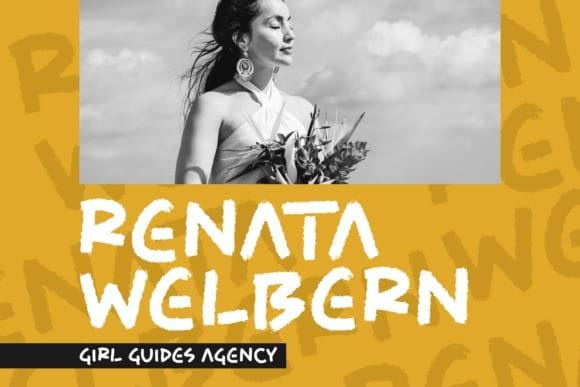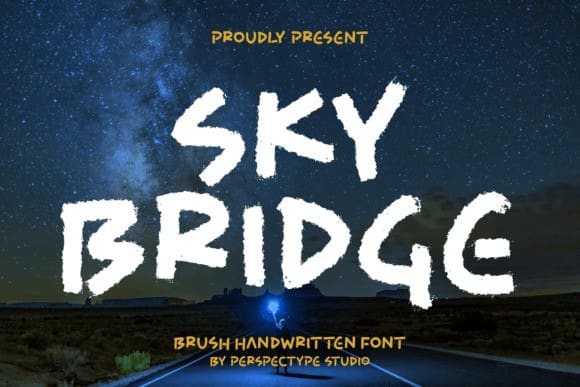
Sky Bridge Font
Sky Bridge Font is a beautiful all-caps brush handwritten font perfect for logos, branding projects, homeware designs, product packaging, mugs, quotes, posters, shopping bags, T-shirts, book covers, name cards, invitation cards, greeting cards, labels, photography, watermark, special events, and all your other lovely projects that need a beautiful script taste.